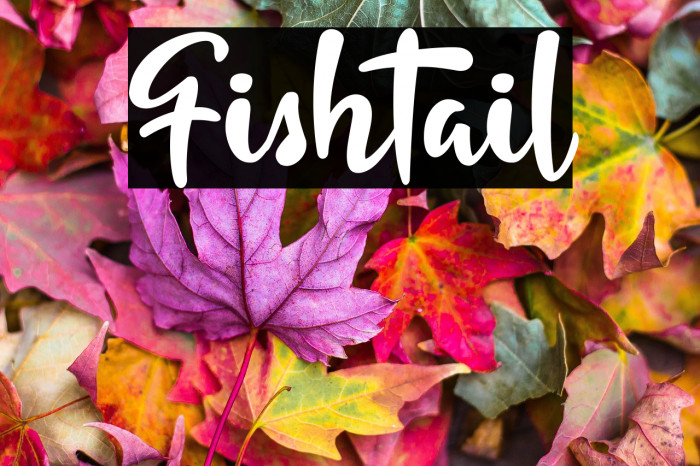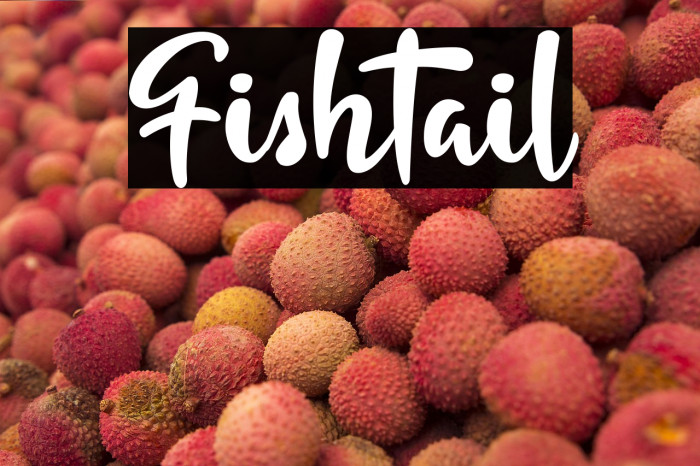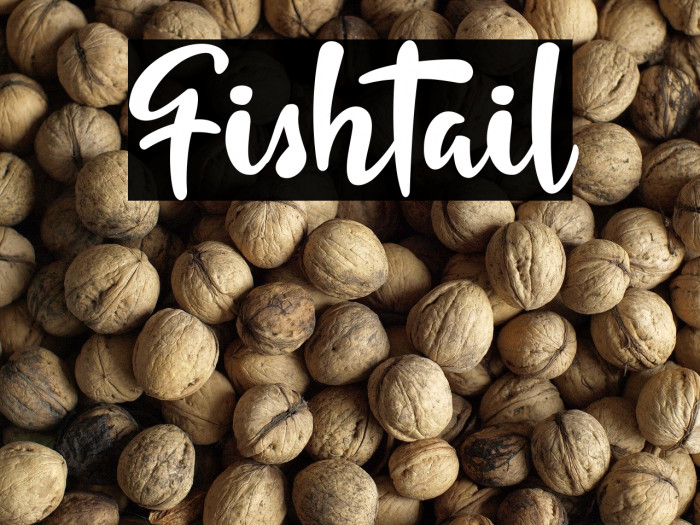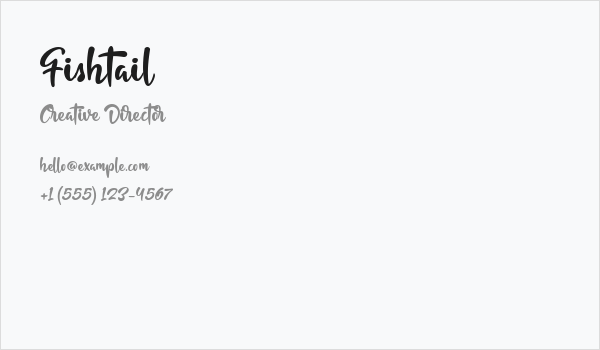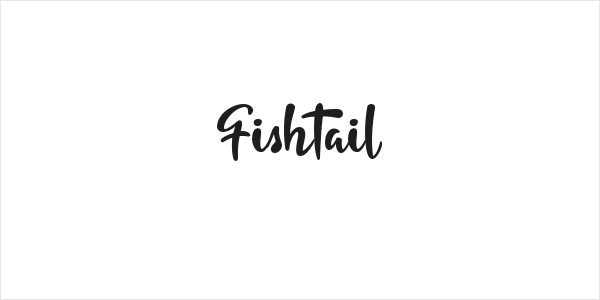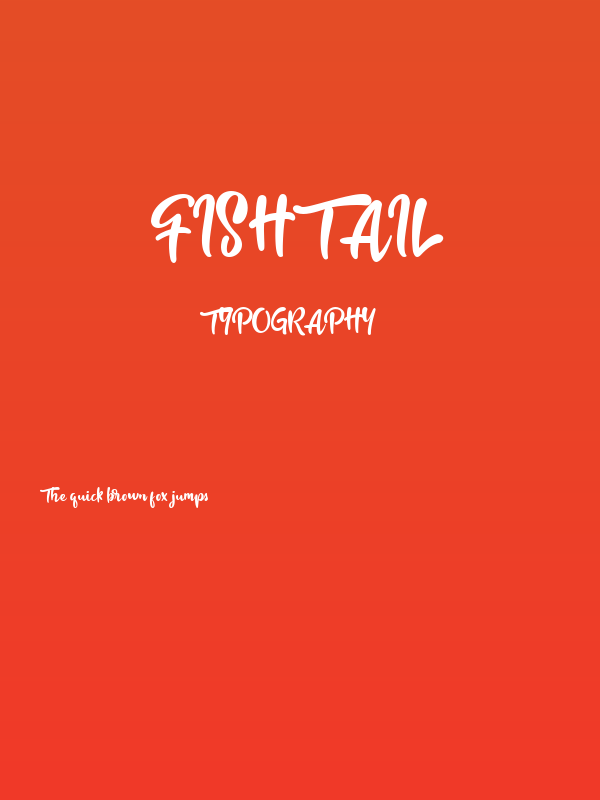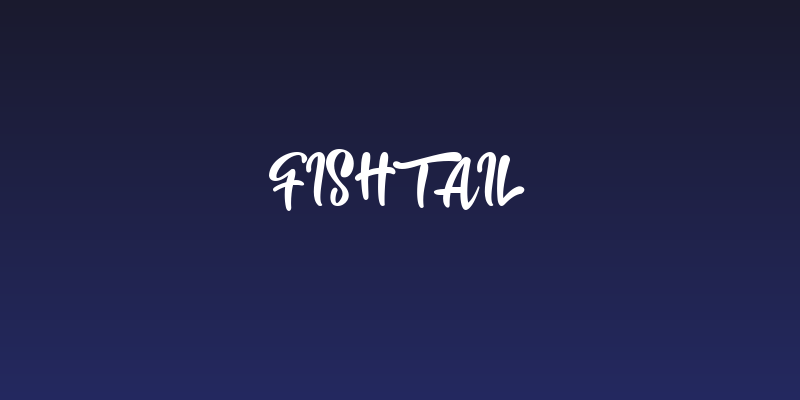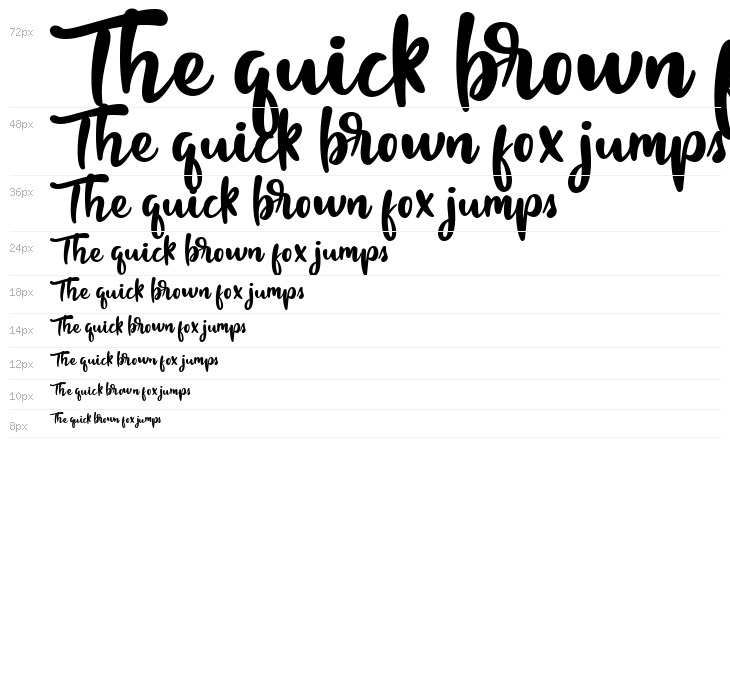
Fishtail Font
Fishtail Description
This font features a bold, flowing script style with a playful and energetic feel. The characters are connected, giving it a handwritten appearance that is both casual and stylish. The uppercase letters are distinct with exaggerated curves, while the lowercase letters maintain a consistent flow, enhancing readability. The numbers and special characters follow the same dynamic style, making them suitable for creative designs. The overall look is modern yet retains a classic script charm, making it versatile for various design needs.
| Use Case | Logos, Headlines, Decorative text |
| Proposed Projects | Ideal for branding, invitations, greeting cards, and social media graphics. |